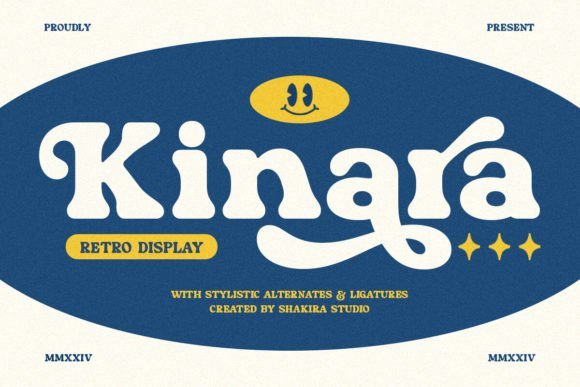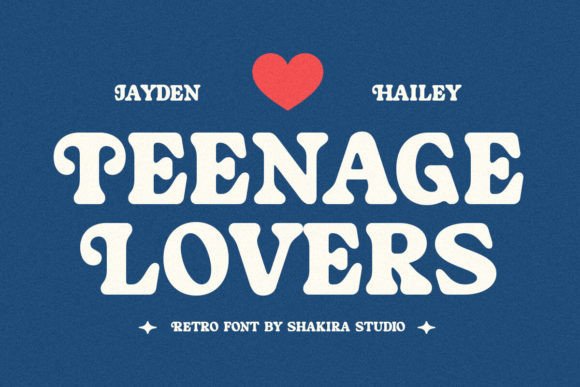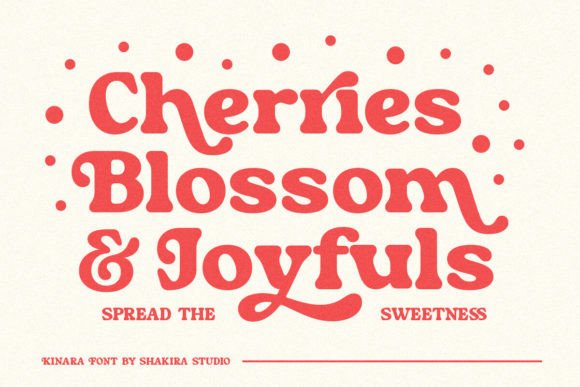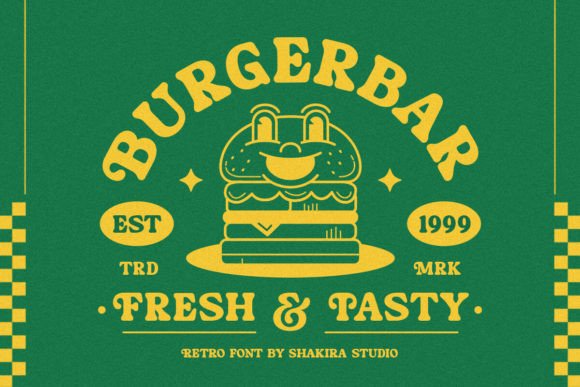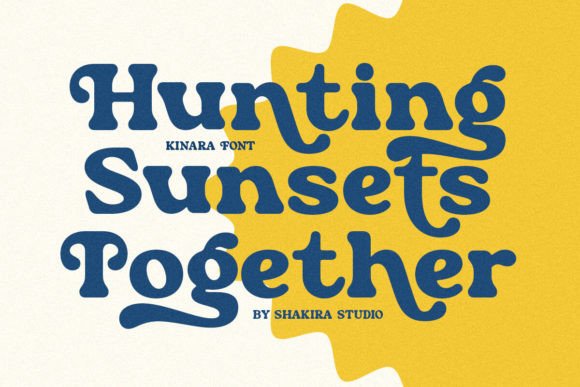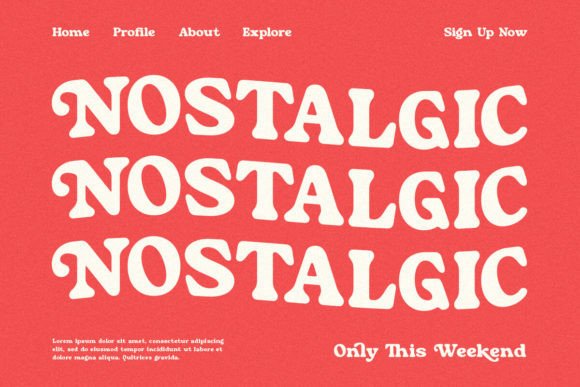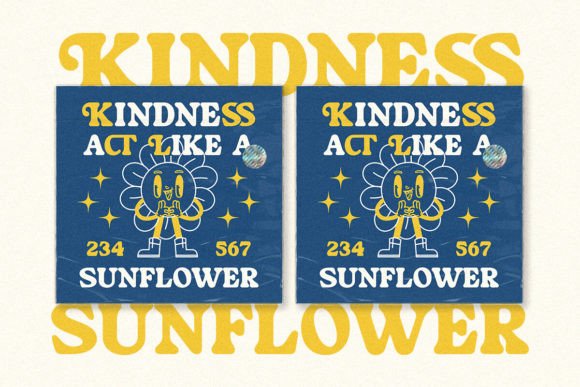
Get Ready to Time-Travel with the Kinara Font
Have you ever stumbled upon an old photograph or a vintage advertisement that instantly transports you to a bygone era? That’s exactly the kind of magic the Kinara Font brings to your creative projects. This bold and nostalgic Retro Serif font is designed to evoke the playful charm of the past, making it perfect for vintage-inspired designs.
Whether you’re working on a branding project, a poster, or any other creative endeavor, Kinara Font is an excellent choice. Its versatility shines through in its regular and italic versions, while the stylistic alternates and ligatures add an extra layer of depth and character. With Kinara Font, you’ll be able to add a touch of retro flair to your designs, making them truly stand out.
Kinara Font Key Features
- Font Family: Kinara is a multi-script font family that supports various languages, including Arabic, Devanagari, and Latin scripts.
- Character Set: Kinara has a large character set, including over 1,000 glyphs, making it suitable for a wide range of applications, from body text to display typography.
- Font Size and Resolution: Kinara is designed to work well at various font sizes and resolutions, including small sizes and low resolutions, making it ideal for digital applications.
- Unique Characteristics: Kinara features a unique blend of traditional and modern design elements, with a focus on legibility and readability across different languages and scripts.
- Language Support: Kinara supports a wide range of languages, including Arabic, Hindi, Marathi, and many others, making it a versatile font for global applications.
Designer Review: Kinara Font
I recently had the chance to work with the Kinara Font, and I have to say, it’s been an interesting experience. Here’s my honest review.
- Unique Character Set: Kinara Font has a distinct set of characters that will add a personal touch to your designs. Its irregularities give it a handmade feel, perfect for creative projects.
- Expressive Typography: The font’s bold lines and geometric shapes make it an excellent choice for headings, titles, and anything that needs to stand out.
- Cultural Significance: As the name suggests, Kinara Font is inspired by Indian culture, making it a great option for projects that require a touch of international flair.
- Limited Legibility**: Kinara Font’s unique character set can make it difficult to read at smaller font sizes or in body text.
- Not Suitable for Body Text**: Due to its bold lines and geometric shapes, Kinara Font is better suited for headings and titles rather than body text.
Overall, Kinara Font is a great choice for designers looking for a unique and expressive typeface. While it may have some limitations, its cultural significance and distinct character set make it a valuable addition to any design project.